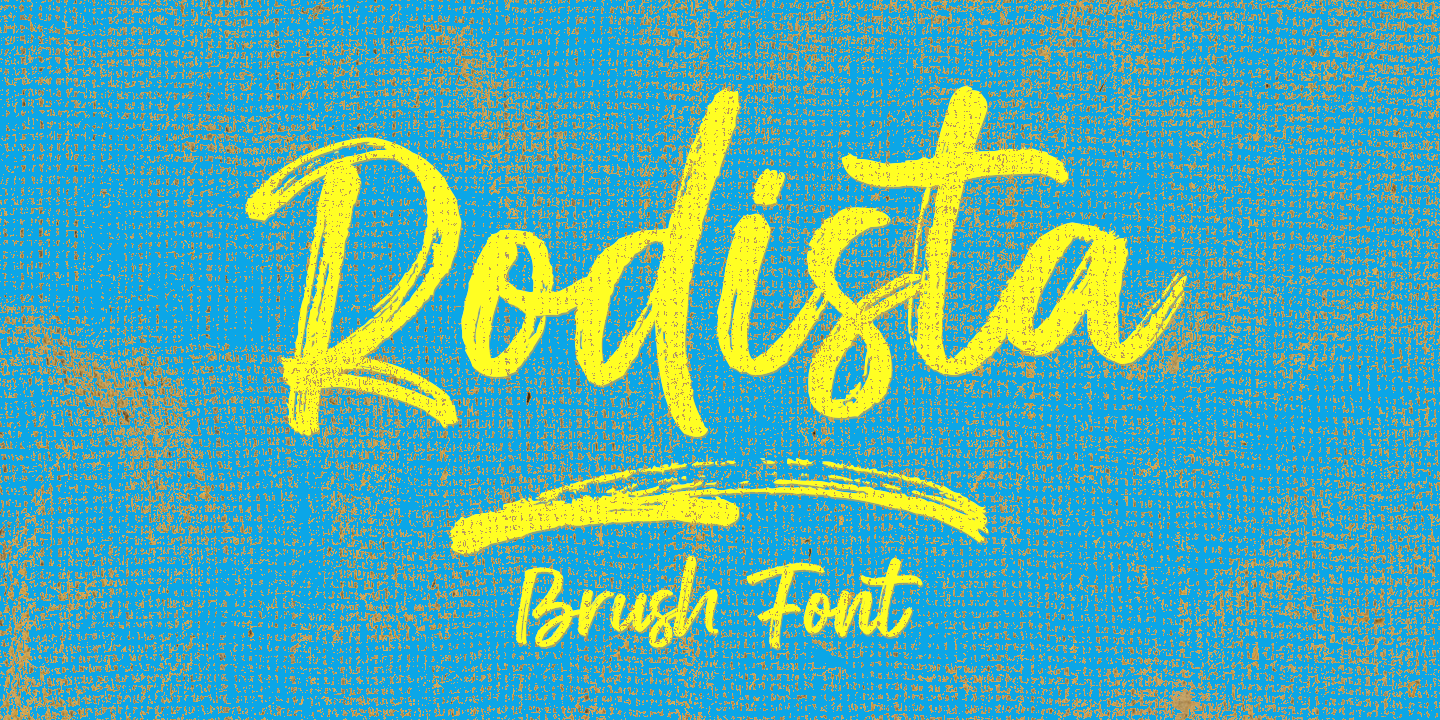
Usage Examples: Rodista Brush Font is ideal for vibrant logos, dynamic social media posts, eye-catching posters, and stylish branding projects.
Why It’s Exciting: Its energetic, handwritten brush style with fluid strokes adds a bold, artistic flair, perfect for making designs pop.
Font Families: Rodista Brush Font includes Regular and Italic variants, offering flexibility for creative and expressive designs.
Unleash your creativity with Rodista Brush Font Free Download! This handwritten brush typeface, designed by Tebaltipis.std, brings a lively, authentic vibe to your projects, making it a top choice for logos, quotes, and promotional materials. Its dynamic strokes and natural flow create a striking, modern aesthetic that captivates audiences. Download Rodista Brush Font Free Download now to test its bold charm, but secure a commercial license for professional use. With Regular and Italic styles, this font adapts seamlessly to various design needs, ensuring both impact and readability. Elevate your brand’s visibility with this versatile, high-energy typeface today